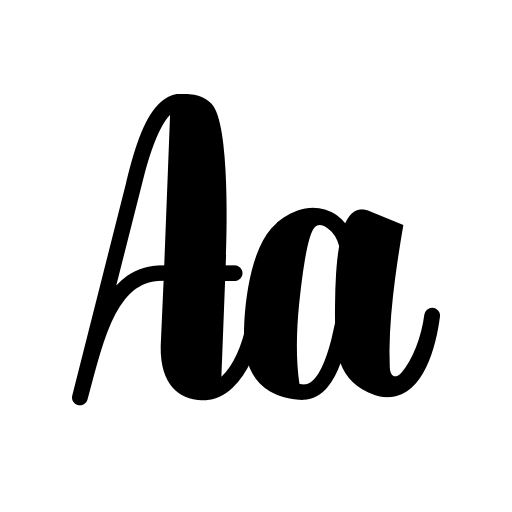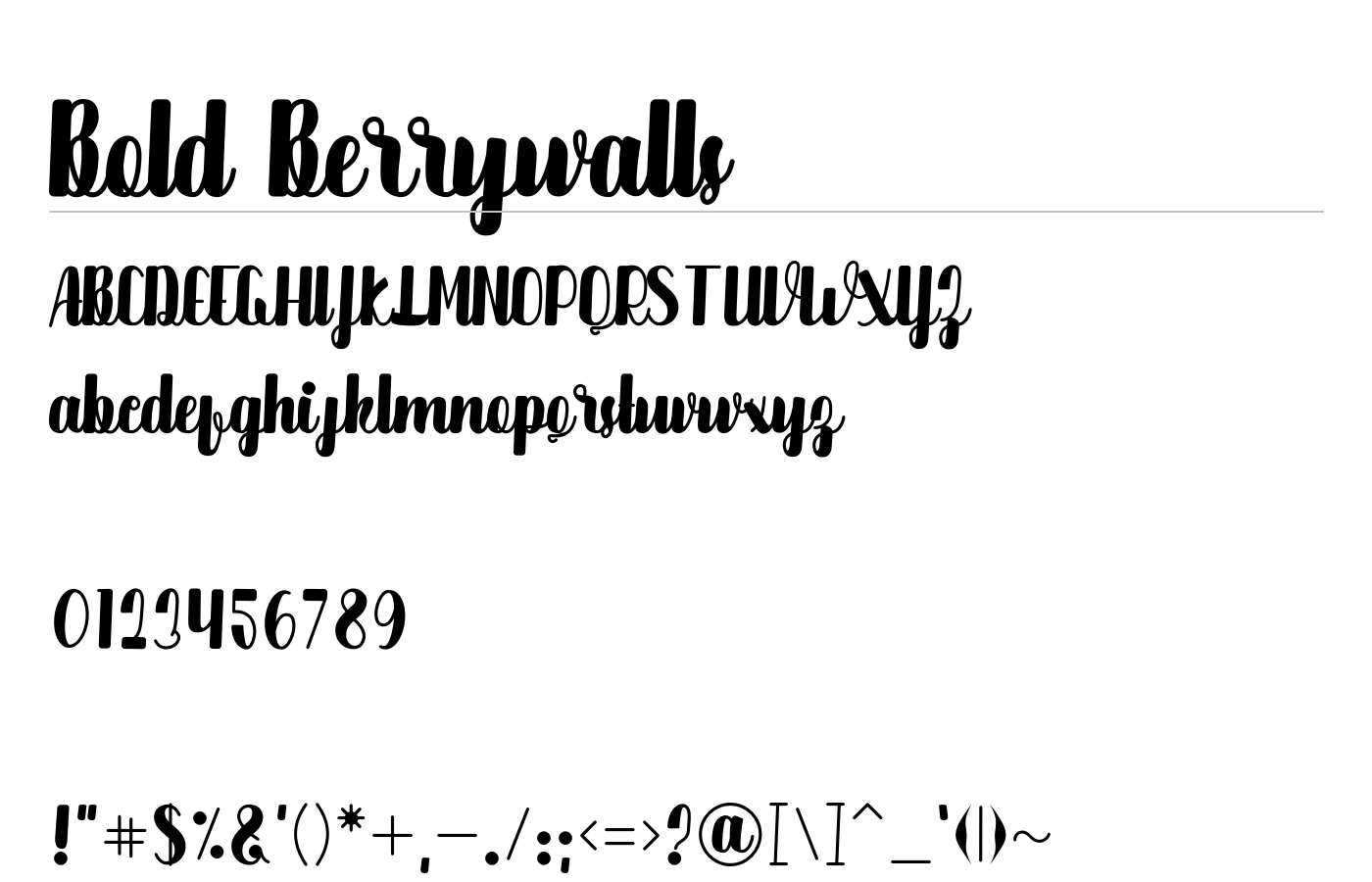
Bold Berrywalls is a bold, decorative script font with strong vertical strokes and charming swashes that add a playful yet elegant touch. Its thick weight and condensed shape make it ideal for eye-catching headlines, logos, and branding that seeks a vintage or handcrafted feel. This font works well for fashion, packaging, and creative projects where personality and style need to stand out.
Bold Berrywalls Font
About Bold Berrywalls Font